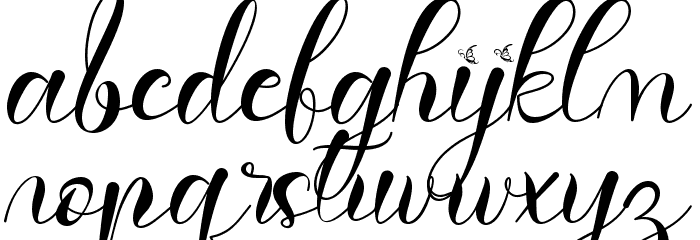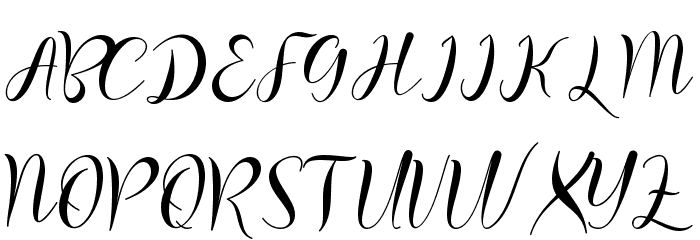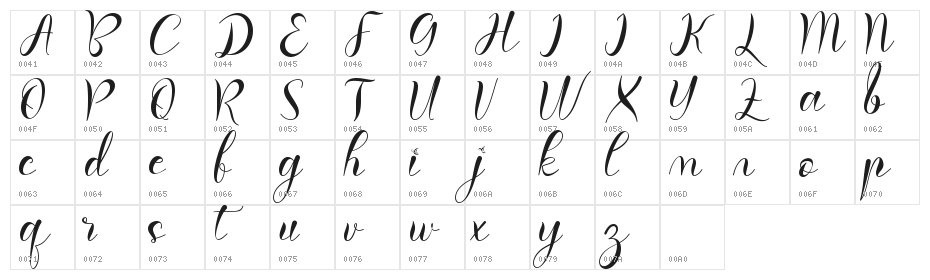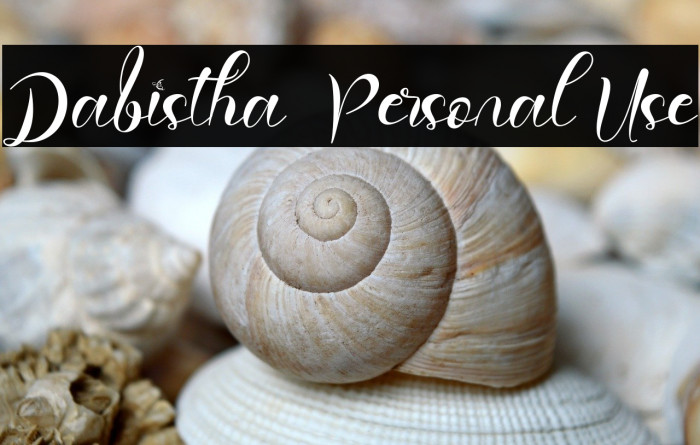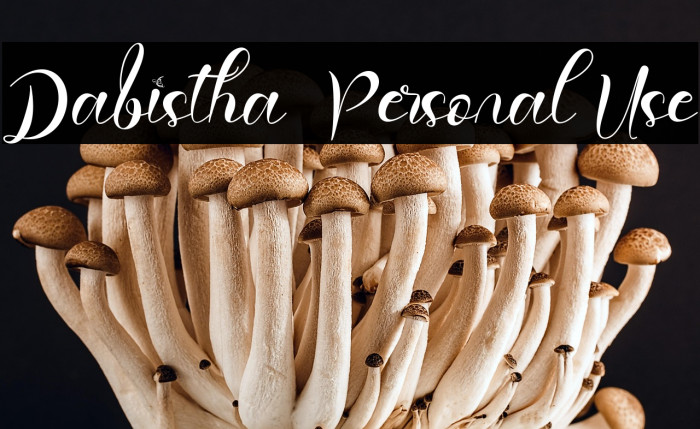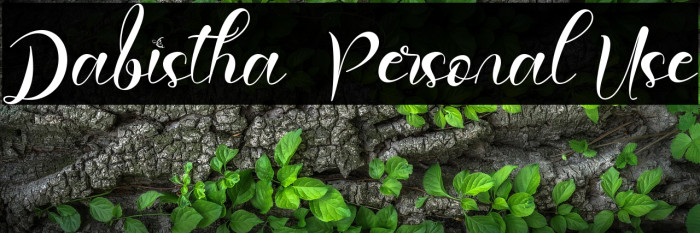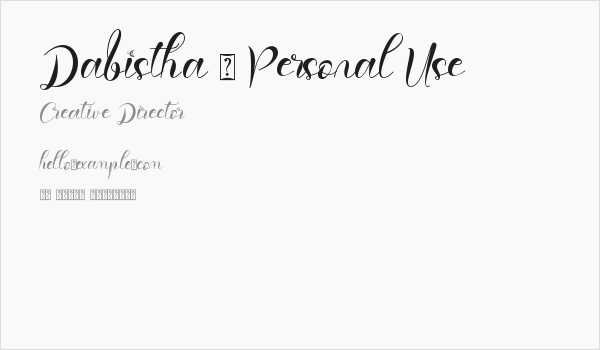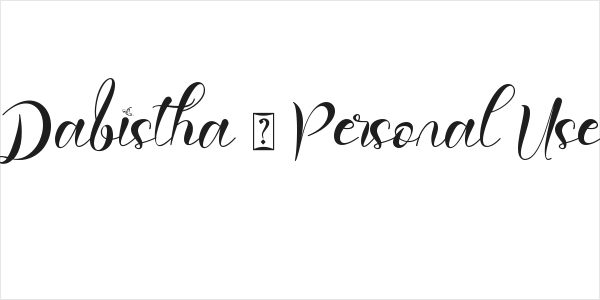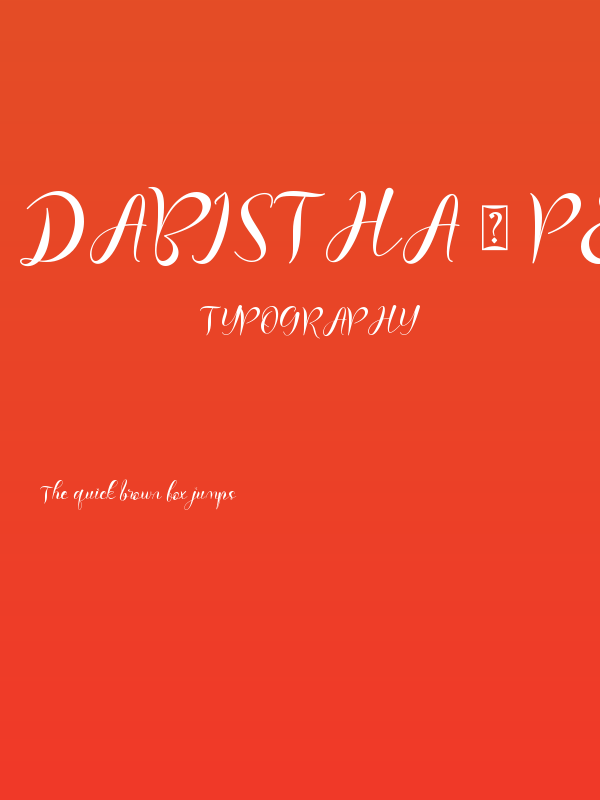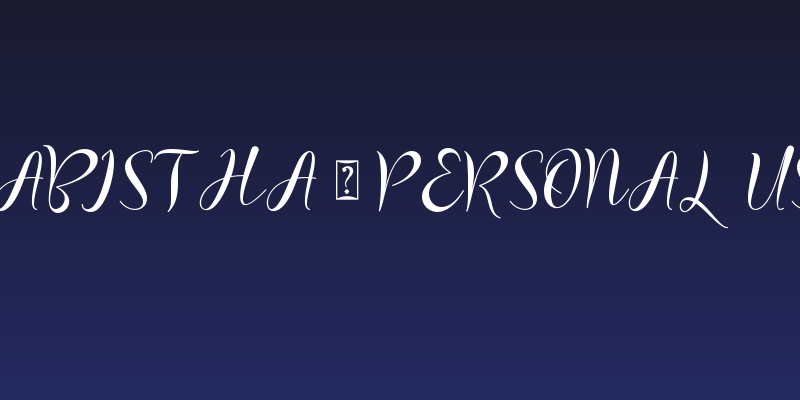
Dabistha - Personal Use Font
This font features an elegant and flowing script style that exudes sophistication and charm. The characters are designed with a high level of detail, showcasing graceful curves and flourishes that add a sense of movement and fluidity. The uppercase letters are particularly ornate, with sweeping lines that extend beyond the baseline, while the lowercase letters maintain a consistent and harmonious flow. The font's overall appearance is both artistic and refined, making it suitable for a variety of creative applications. Its unique style is perfect for projects that require a touch of elegance and personalization.
An elegant and flowing script font with ornate, graceful curves.
- Proposed Projects: Ideal for wedding invitations, greeting cards, branding, and logo design.
- Use Case: Logos, Invitations, Decorative text